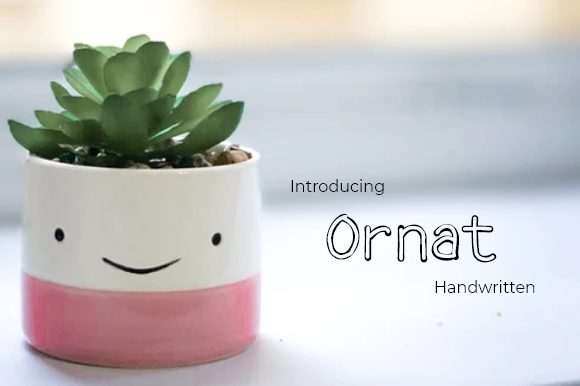
Introducing Ornat Font, the coolest handwritten font you'll ever lay your eyes on! This mesmerizing script is crafted with captivating outline characters, ensuring your designs stand out from the crowd.
Unleash your creativity with Ornat, an enchanting script that will transform your crafting projects into masterpieces. Its playful and charming style will add a touch of whimsy to invitations, posters, branding, and more.
Ornat is perfect for cover art, adding a unique and eye-catching touch to your projects. With its distinct character, this font will elevate your designs, making them truly unforgettable.
Say goodbye to ordinary fonts and embrace the extraordinary with Ornat. Its intricate details and flowing lines will give your artwork a touch of elegance and sophistication that will leave your audience spellbound.